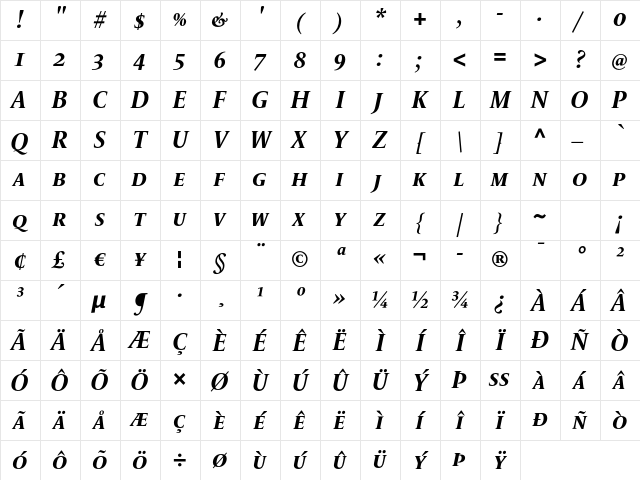
LeMonde Livre SC BoldItalic Free Font
LeMonde Livre SC BoldItalic
Complete LeMonde Livre SC BoldItalic glyph index. Displaying only characters natively supported by LeMonde Livre SC BoldItalic font.
Design Context for LeMonde Livre SC
LeMonde Livre SC is a composed and adaptable typeface that performs quietly and consistently across a wide range of design contexts. The slanted form adds forward momentum and visual energy. Its bold stroke weight gives it real presence on the page.
Pro Tip: Use LeMonde Livre SC for emphasis, pull quotes, and subheadings where its slanted energy can add rhythm to the layout.